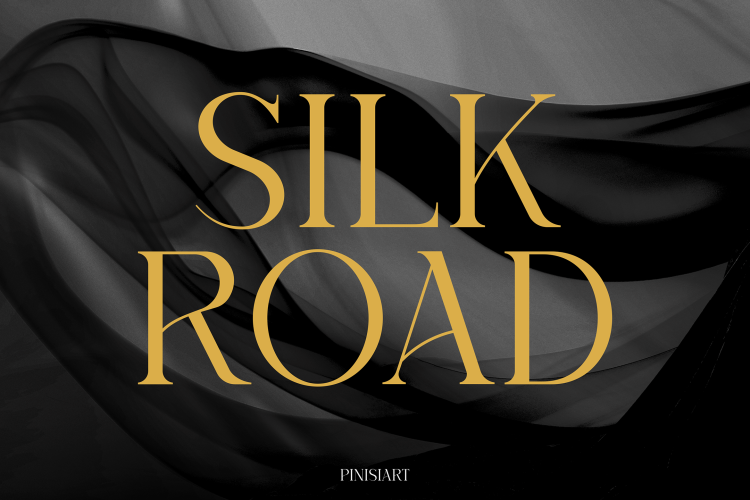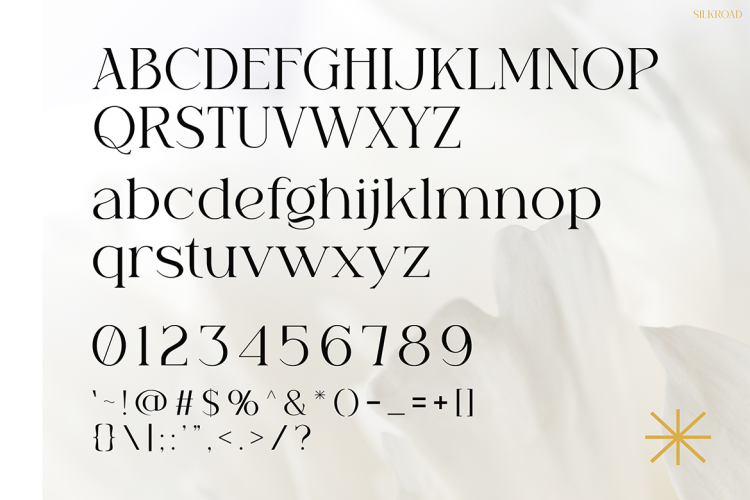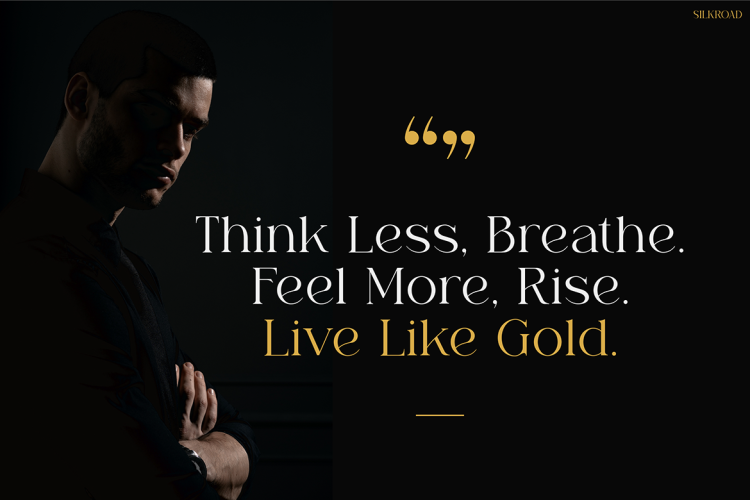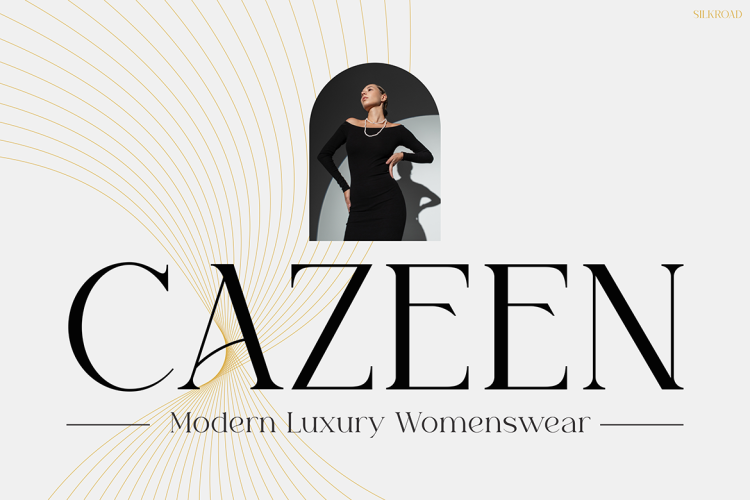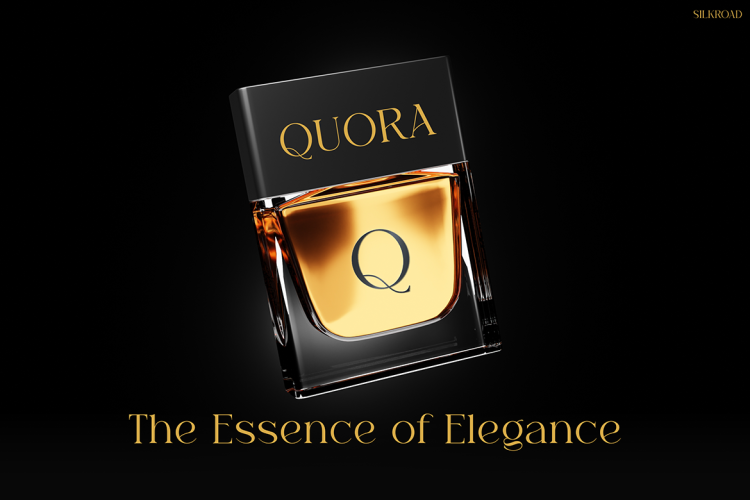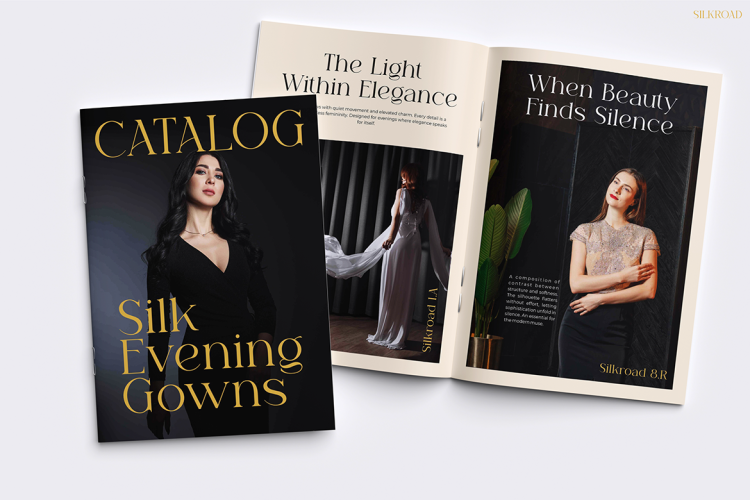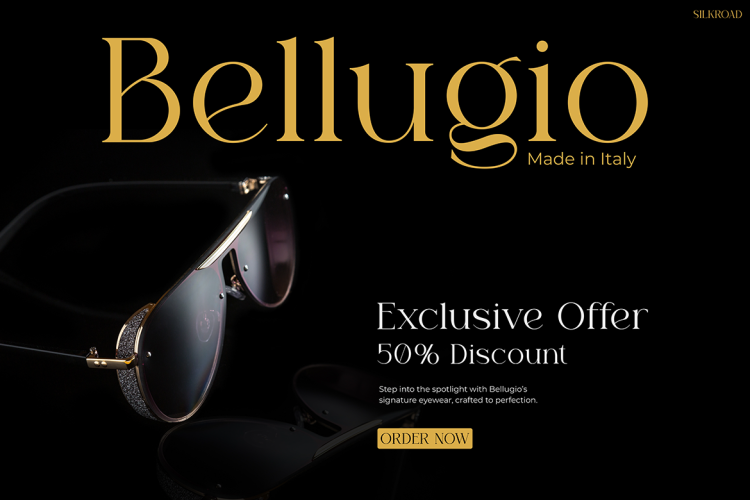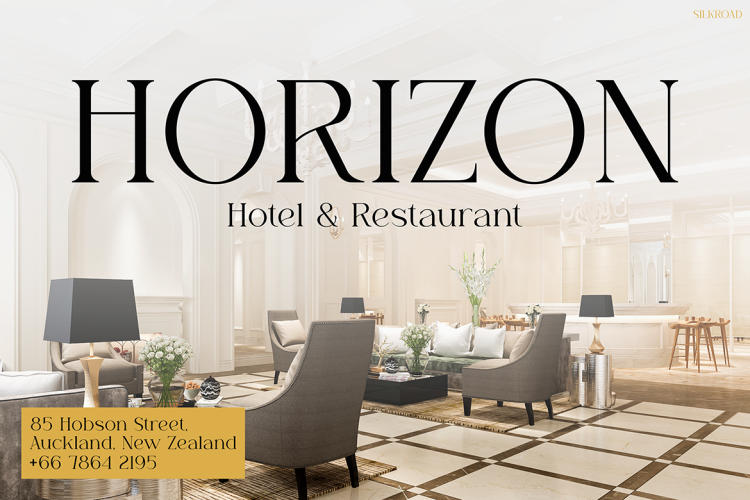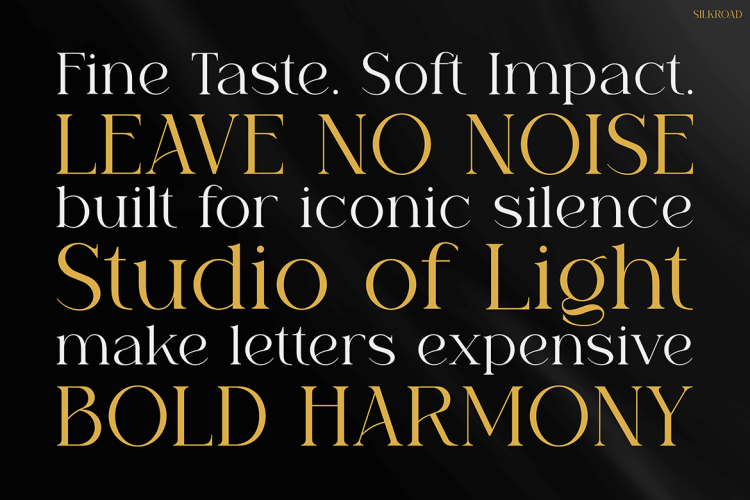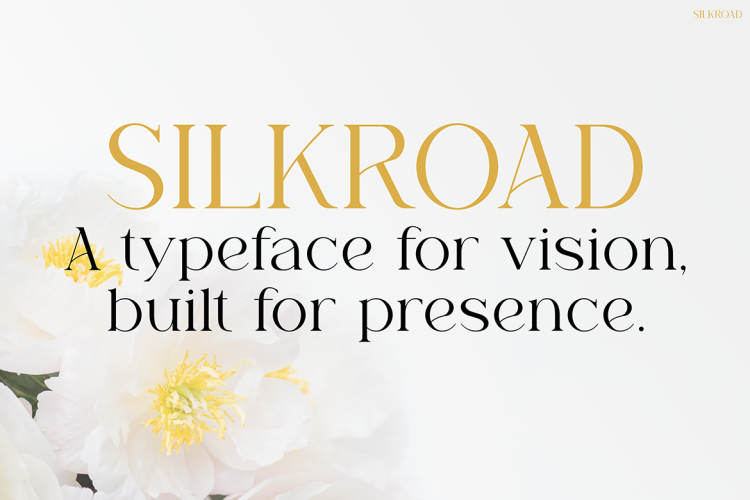
Instagram Font Silkroad โ Elegant Luxury for Modern Branding
Instagram Font Silkroad is a refined serif typeface that blends timeless beauty with modern flair. Itโs perfect for bold branding and clean, high-end visuals. Every stroke feels intentional, delivering elegance with a whisper of power.
What sets Silkroad apart is its balance โ sleek, soft, and confidently stylish. It features graceful curves, distinctive ligatures, and carefully spaced characters. Moreover, its versatile design makes it suitable for both digital and print use. Whether youโre crafting Instagram quotes or editorial layouts, Silkroad adds a luxurious finish to your message. Whether you’re creating luxury fashion content, magazine layouts, or premium Instagram posts, Silkroad elevates every design with class and poise.
In fact, this font was built for presence. As you can see in the preview, it elevates everything from fashion layouts and hotel promos to catalog covers and magazine ads. Its uppercase forms project sophistication, while the lowercase characters offer subtle rhythm and softness. Therefore, it feels at home in both statement headlines and detailed text compositions. As a result, your designs will look refined, clear, and visually impressive.
Who is This Font For?
Silkroad is perfect for creatives who care about visual elegance. If you’re a fashion designer, photographer, or boutique owner, this font will instantly enhance your branding. Moreover, wedding planners, stylists, and lifestyle bloggers will find it equally effective for crafting a premium look.
Whether you’re launching a product, designing a brand kit, or curating your Instagram feed, Instagram Font Silkroad helps you make a memorable impression. In other words, it speaks luxury โ without being loud. Whether used in Instagram quotes, product tags, or editorial spreads, Silkroad adds a luxurious feel to every line of text.